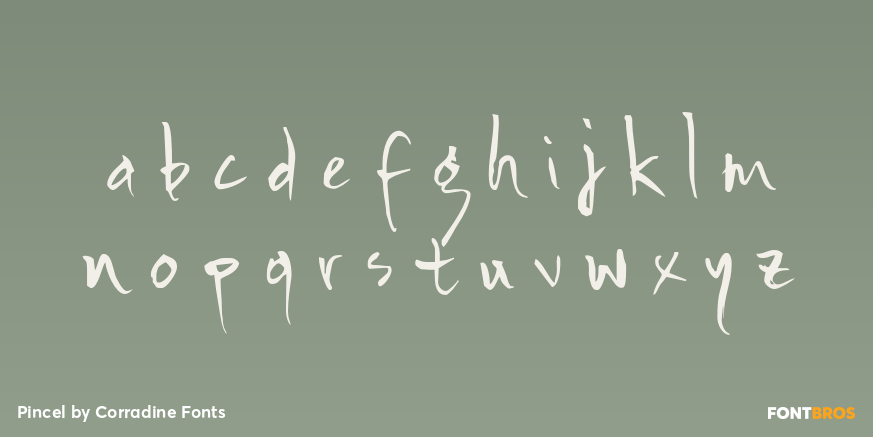
Pincel
Font Family by Corradine Fonts
Pincel is a handwritten display family with a casual, brushed feel and a lightly distressed edge. It brings together expressive script forms, swash capitals, and companion dingbats for work that needs a more crafted, personal look than a standard script can offer.
This family includes 6 fonts: Pincel Regular, Pincel Swash Caps, Pincel Dingbats 1, Pincel Dingbats 2, Pincel Cursive, and Pincel 2. That mix makes it easy to build layered lettering, decorative accents, and custom-looking compositions for posters, packaging, branding, invitations, social graphics, and other display-driven projects.
Created by Corradine Fonts, Pincel is a strong fit for designers who want handwritten energy with extra flexibility. The included swash and dingbat styles give you more ways to add movement, ornament, and a finished brush-drawn character to your layouts.